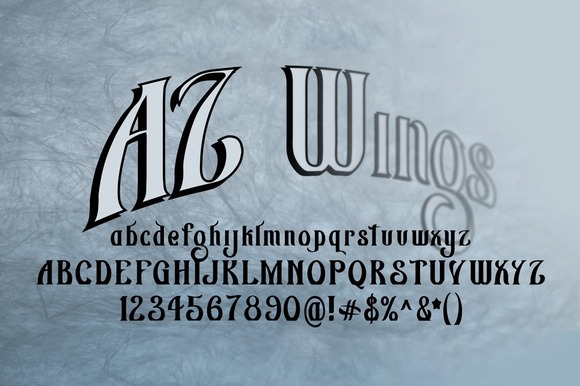
AZ Wings Font
About AZ Wings Font
AZ Wings is a beautiful font. It was inspired by an old Gull Wings skateboard truck logo, but with a modern and unique twist.